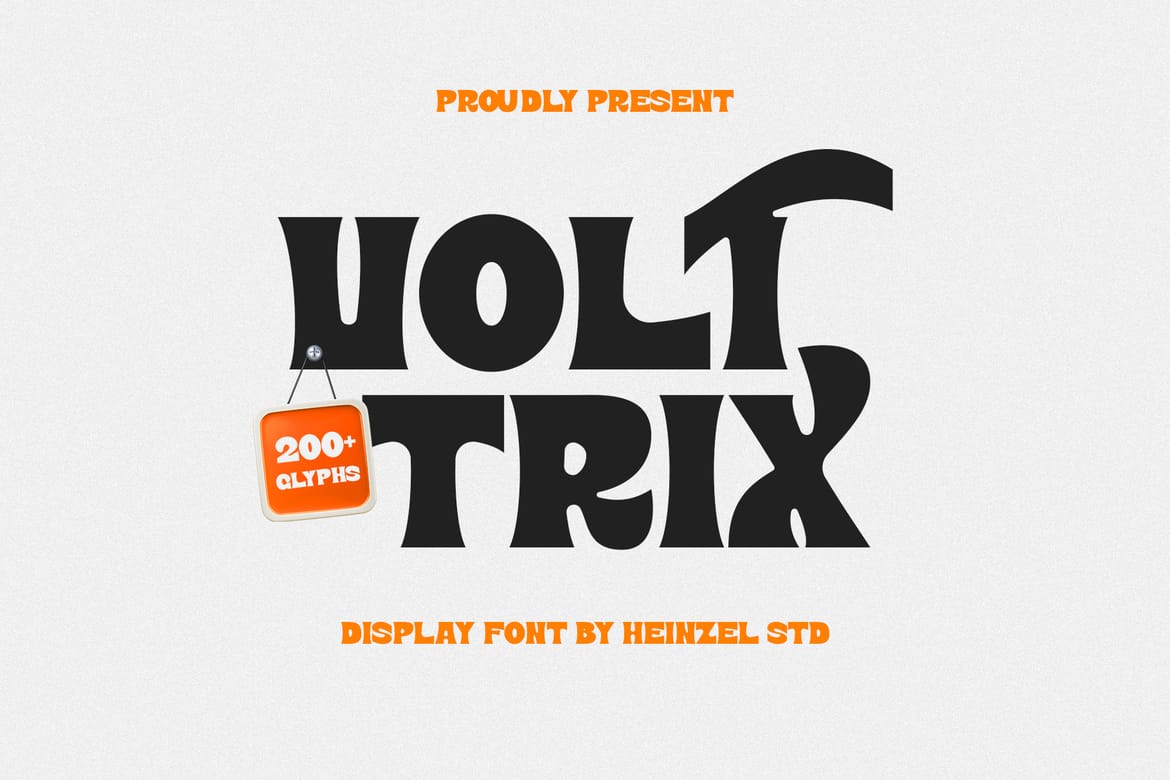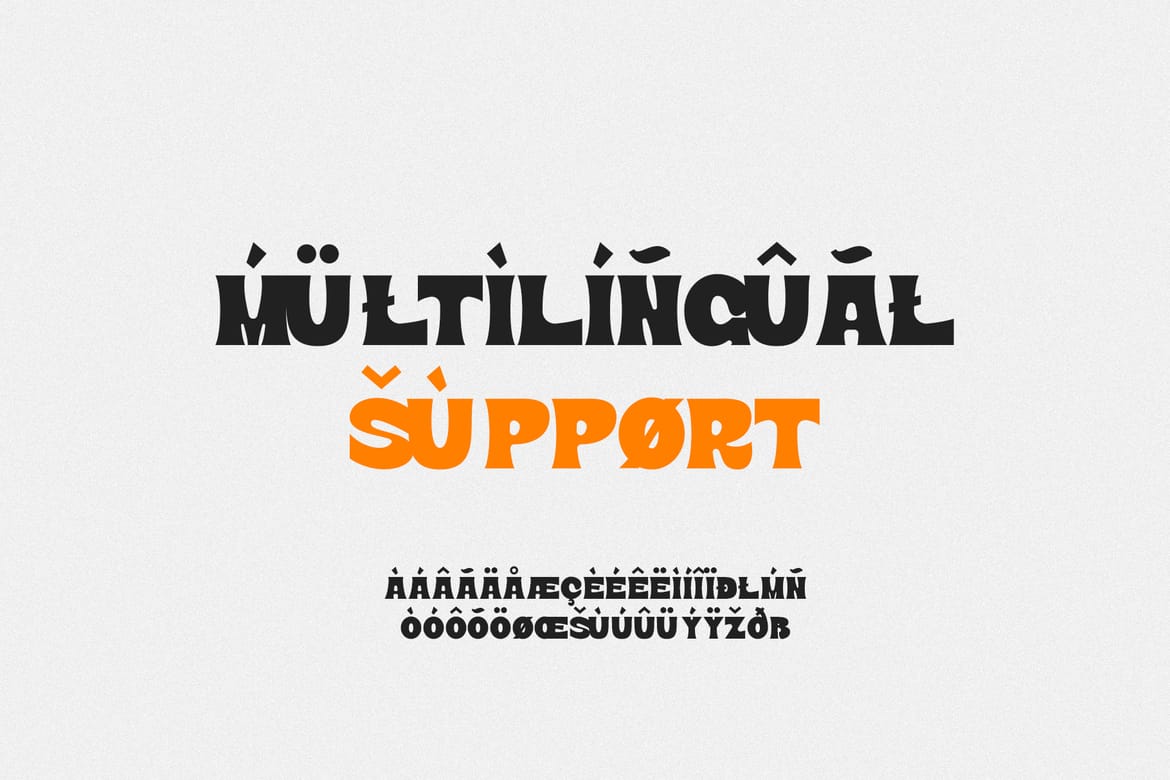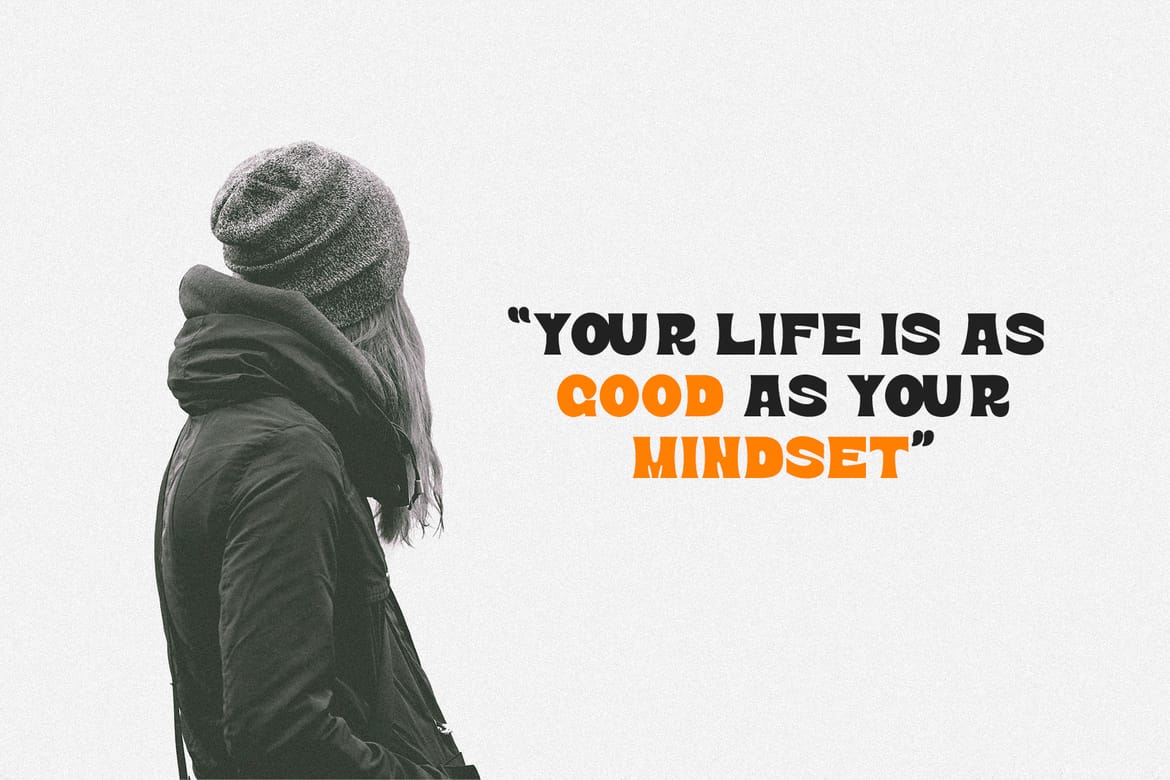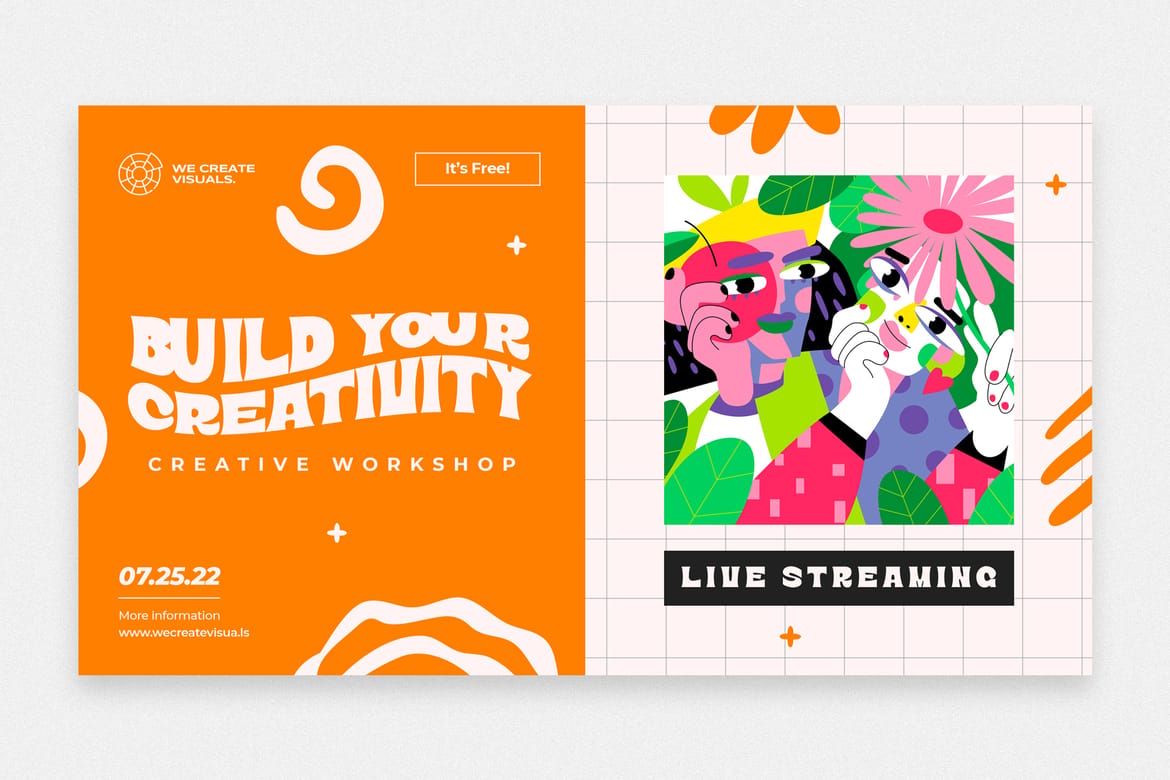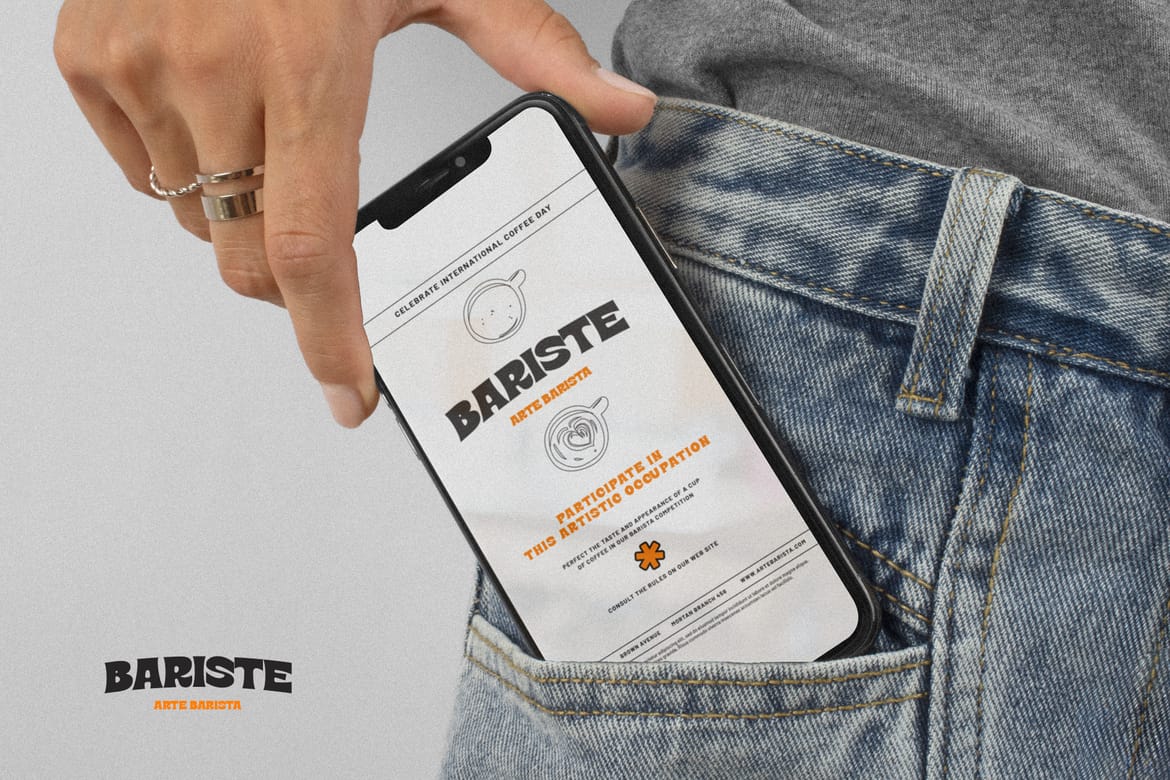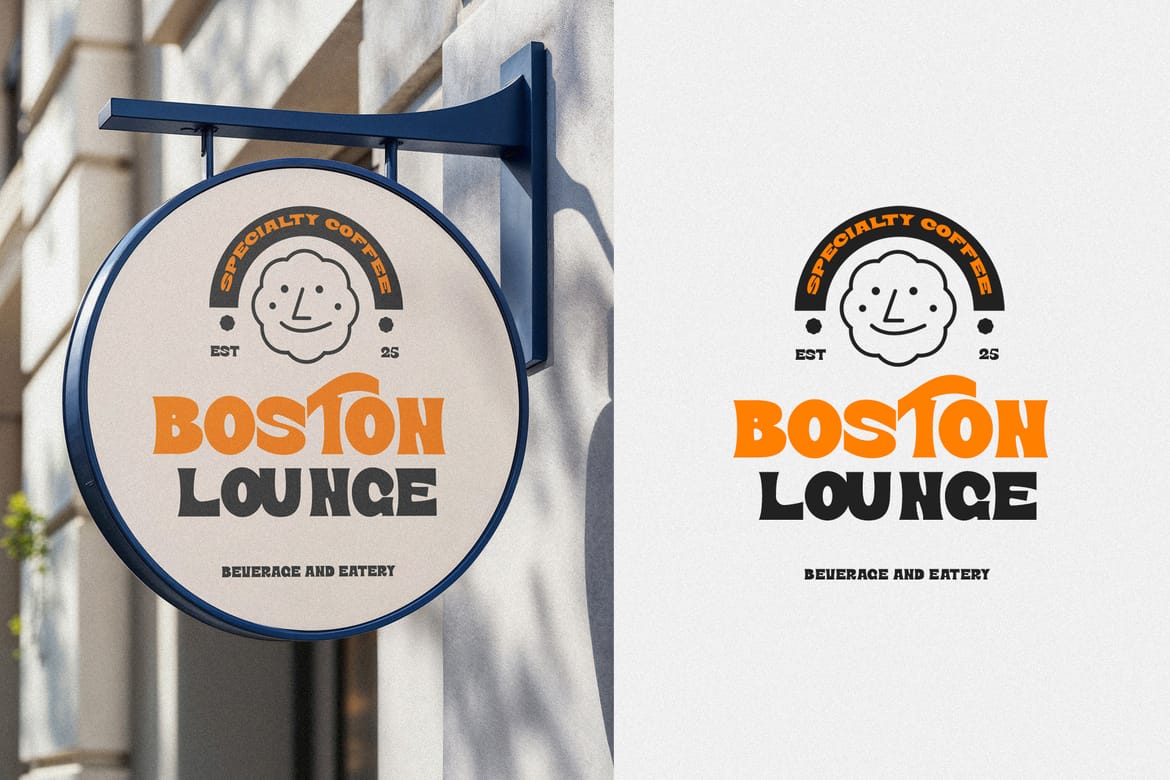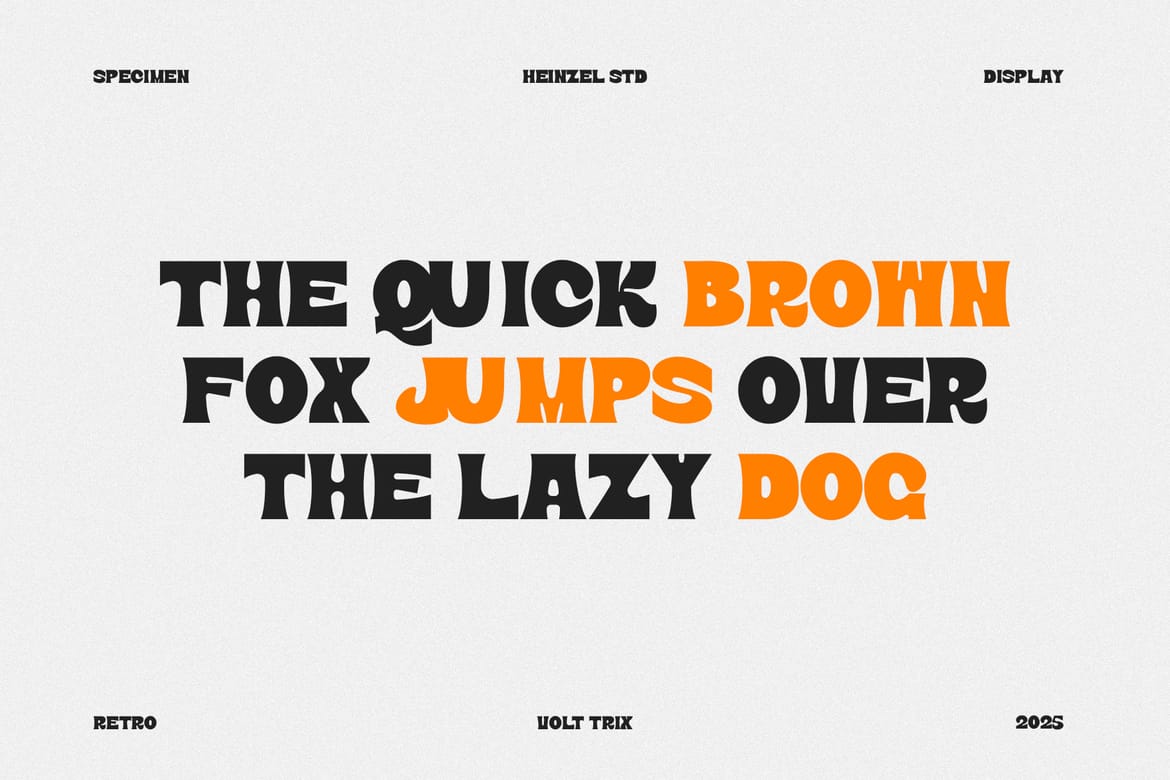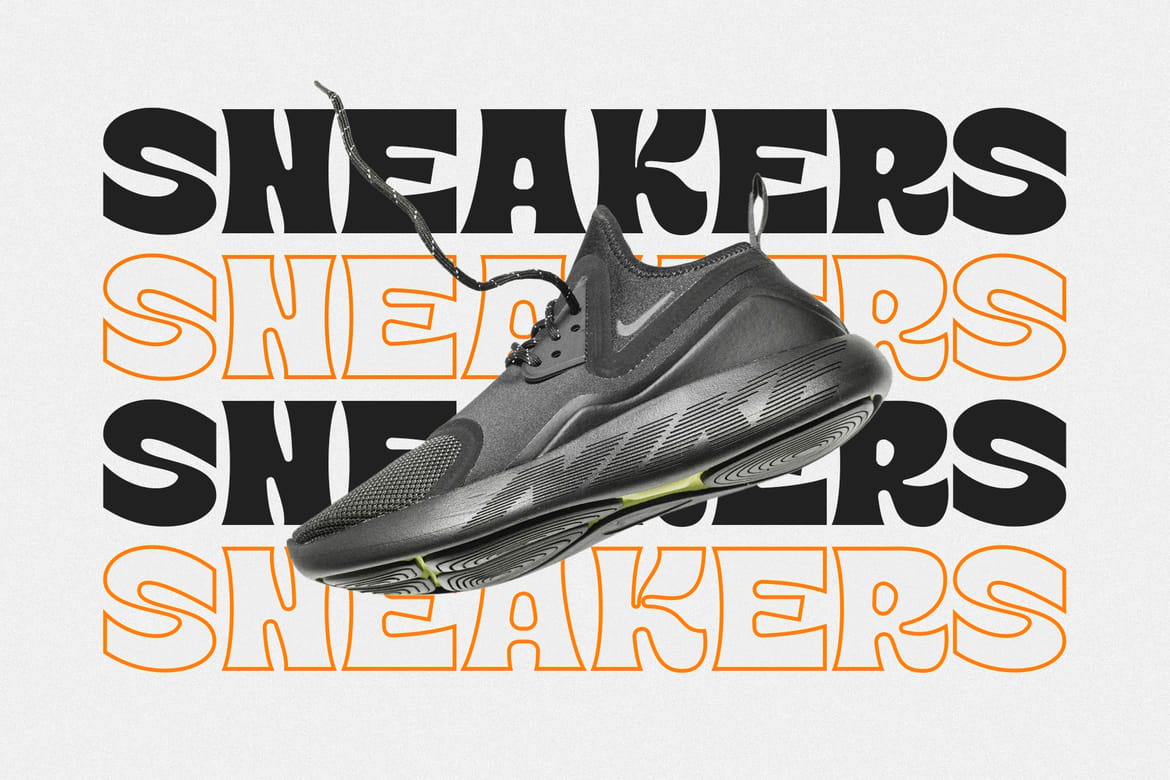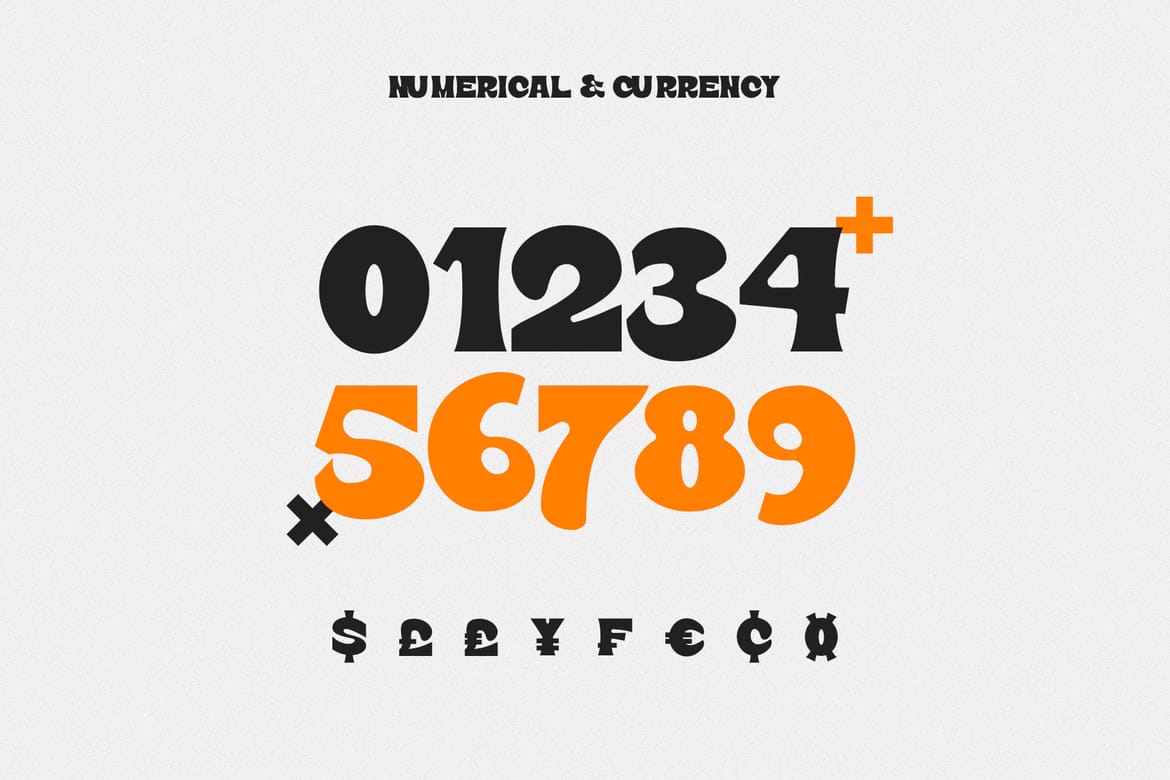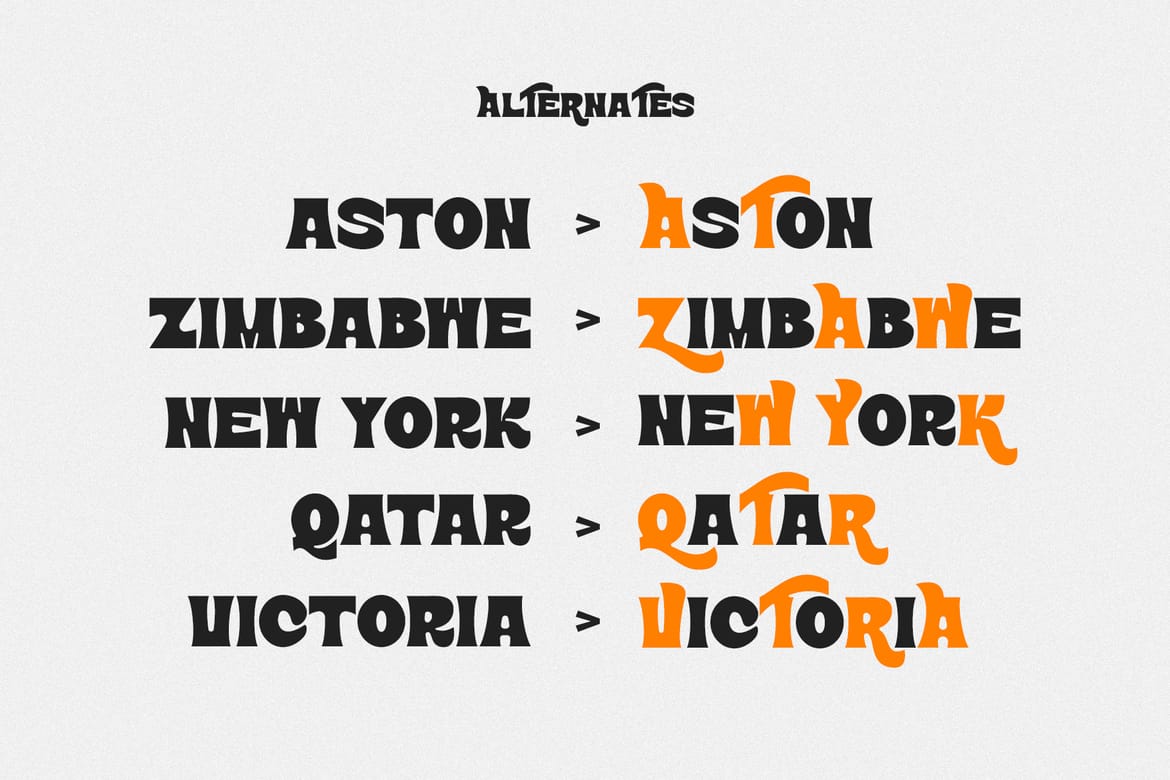
Volt Trix is a bold and playful display font designed for eye-catching titles, logos, posters, and branding projects. Featuring 200+ unique glyphs, Volt Trix brings a retro yet modern vibe that stands out in any design. Perfect for creatives seeking a powerful and character-rich display typeface.